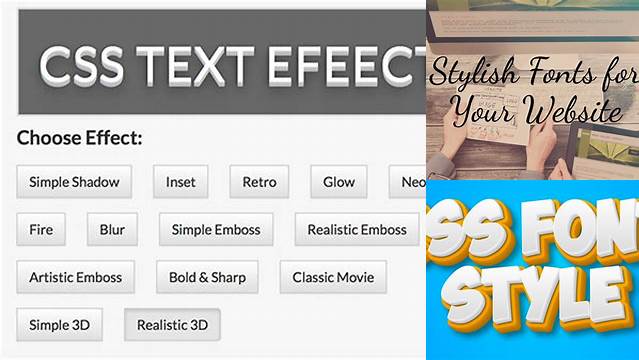
CSS Fonts: Style Text Like A Pro!
Hey guys! Let's dive into the world of CSS fonts. If you're looking to make your website stand out, understanding how to manipulate text with CSS is super important. We're going to cover everything from the basics of font properties to more advanced techniques. By the end of this guide, you'll be a font styling pro!
Understanding CSS Font Properties
Let's start with the fundamental CSS font properties. These are the building blocks that allow you to control the appearance of your text. Knowing these properties inside and out is crucial for creating visually appealing and readable content. Think of these as your artist's palette—each property offers a unique way to enhance your design.
1. font-family
The font-family
property is probably the most important one when it comes to CSS fonts. It specifies the typeface you want to use for your text. You can provide a list of font names as a fallback in case the user's browser doesn't support the first font. For example:
In this case, the browser will first try to use Arial. If Arial isn't available, it will try Helvetica. If neither Arial nor Helvetica is available, the browser will default to a generic sans-serif font. Using generic font families like serif
, sans-serif
, monospace
, cursive
, and fantasy
is a good practice to ensure your text always has some styling, no matter the user's system. When specifying font names with spaces, remember to wrap them in quotes (e.g., 'Times New Roman'
). The font-family
property is foundational, so mastering it ensures your text starts off on the right foot, providing a consistent and visually pleasing experience for your users.
2. font-size
The font-size
property controls the size of your text. You can use various units like pixels (px), ems (em), rems (rem), and percentages (%). Using rem
or em
is often recommended for better accessibility and responsive design. For example:
Setting the font-size
in pixels gives you precise control, while using em
or rem
allows the font size to scale relative to the base font size, making your design more adaptable to different screen sizes and user preferences. Remember, readability is key, so choose a font size that is comfortable for your audience. Experimenting with different font sizes on various devices helps strike the perfect balance. Consistent and appropriate font sizing contributes significantly to a positive user experience, ensuring that your content is both accessible and visually appealing.
3. font-weight
The font-weight
property specifies the boldness of the text. You can use values like normal
, bold
, bolder
, lighter
, or numeric values (100-900). For example:
Using font-weight
allows you to emphasize certain parts of your text, creating a visual hierarchy and guiding the reader's eye. While bold
is a common choice, numeric values offer finer control over the weight, allowing for subtle variations that can enhance your design. Choosing the right font weight can dramatically improve the readability and impact of your text. Experiment with different weights to find the perfect balance for your content. Whether you're highlighting key information or creating a sleek, modern look, font-weight
is a powerful tool in your CSS arsenal. Ensuring the correct font weight can also improve accessibility, making text easier to read for users with visual impairments.
4. font-style
The font-style
property is used to make text italic. The common values are normal
, italic
, and oblique
. For example:
Using font-style: italic
is a simple yet effective way to add emphasis or indicate a different tone in your text. While often used interchangeably, italic
and oblique
have subtle differences; italic
uses a true italic font if available, while oblique
simply slants the text. The font-style
property is particularly useful for quotes, foreign words, or when you want to draw attention to a specific phrase. Consistent use of italics can enhance the overall aesthetic of your website. However, be careful not to overuse it, as too much italicized text can become difficult to read. Employing font-style
judiciously ensures that your text remains engaging and accessible.
5. font-variant
The font-variant
property allows you to display text in small caps. The most common value is small-caps
. For example:
Applying font-variant: small-caps
transforms lowercase letters into uppercase letters, but at a smaller size than the actual uppercase letters. This can create a sophisticated and elegant look, particularly useful for headings or decorative text. The font-variant
By following these guidelines, you can create a website with beautiful and functional typography. So go ahead, experiment with different fonts, and make your website shine!
So, there you have it! A comprehensive guide to CSS fonts. From understanding basic font properties to implementing advanced techniques, you now have the knowledge to create stunning typography on your website. Remember to choose fonts wisely, optimize for performance, and always prioritize readability. Happy styling, and may your websites always look their best!